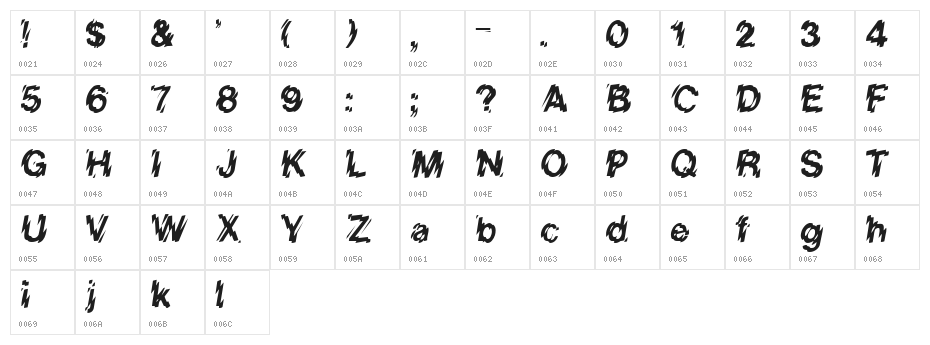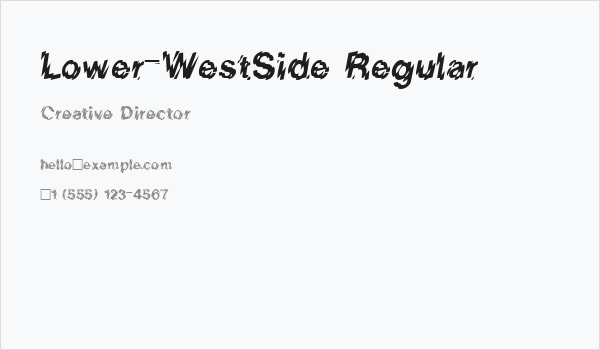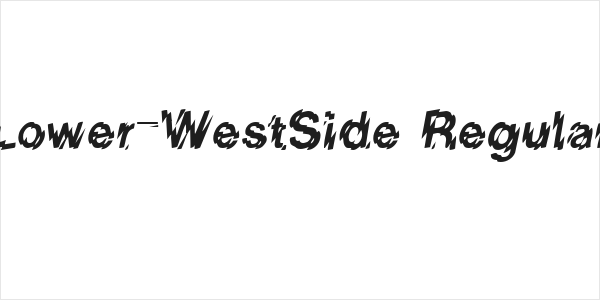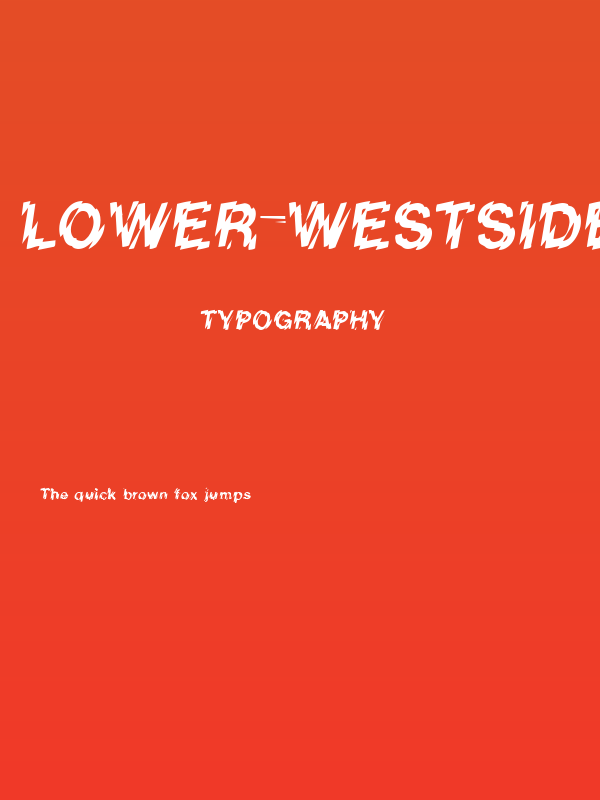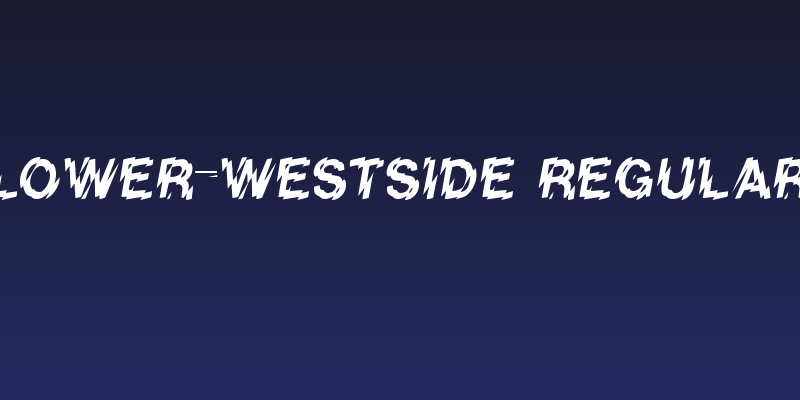
Lower-WestSide Regular Font
Lower-WestSide Regular Description
This font features a bold and dynamic style with a distinct slanted orientation, giving it an energetic and edgy appearance. The characters are designed with sharp, angular cuts and a rough texture that suggests movement and intensity. The uppercase and lowercase letters maintain a consistent style, with the lowercase being slightly more compact. Numbers and special characters follow the same bold and jagged design, ensuring uniformity across all glyphs. The font's unique style makes it stand out, ideal for projects that require a strong visual impact.
Overall StyleModern, Edgy
Proposed ProjectsIdeal for music album covers, sports team logos, urban-themed posters, and dynamic branding materials.